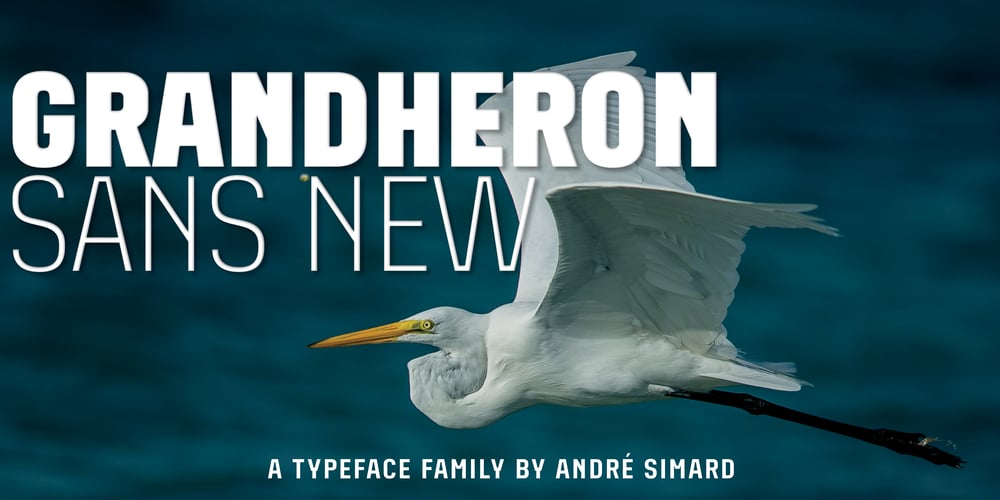
Grandheron Sans New
Grandheron Sans New font
Grandheron Sans New Font Family was designed by André Simard and published by André Simard. Grandheron Sans New contains 18 styles and family package options. If you are looking for a font with very good readability, even with its square appearance and condensed design, Grandheron Sans New is for you. You should find attractive the design of some glyphs like those one: a,f,k,l,v,y and also AJKMNVXY to name a few. Grandheron Sans could be use as well in small size as in huge size. You will certainly like its Thin or Light font which give an awesome effect for titles, subtitles, caption for magazines related to fashion, architecture or even cultural in general. You could easily mix Grandheron Sans New with its companion Grandheron Serif New. There is no limit to create great designs with this large typeface family, so enjoy!Grandheron Serif New is an entirely new design, crafted as a thoughtful companion to the Sans styles. It expands the typographic possibilities of the Grandheron family, offering a cohesive and flexible toolkit for designs projects on any scale.In the development process, Grandheron Sans and Serif was carefully reviewed across all styles. The new iteration of the typeface features numerous refinements, including aligned vertical metrics to ensure consistency with the new Serif family. Users should note that this alignment may result in different line spacing when reformatting text originally set in the 2020 version.